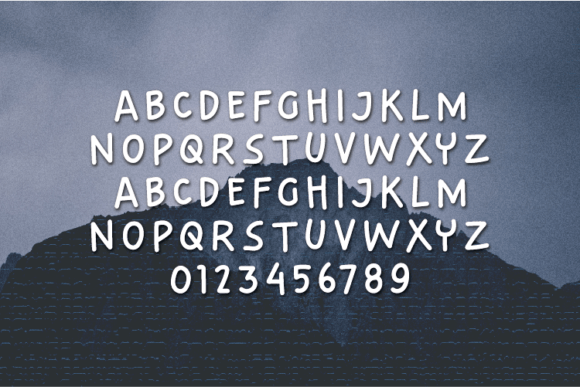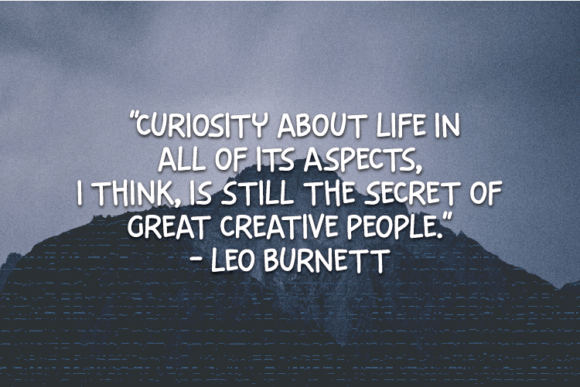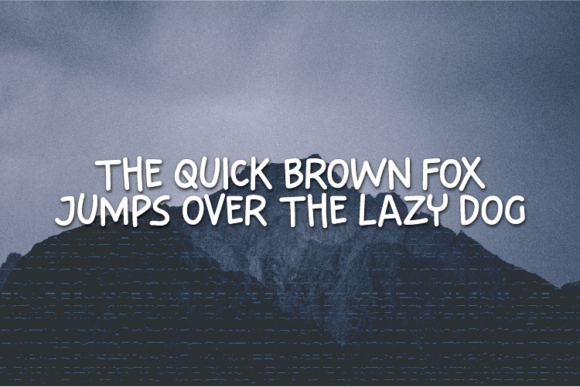
Introduction to Modernies Font
Remember the moment when a spark of creativity hits, and you can envision your project coming to life? It’s a feeling designers know all too well, and for many, it’s the starting point for something truly remarkable. In that instant, the right font can make all the difference, elevating your creation from good to great.
That’s where the Modernies Font comes in – a fun and casual handwritten font that’s ready to take your creative project to the next level. Whether you’re working on a design for a website, a social media campaign, or a marketing brochure, Modernies Font has the potential to be a wonderful asset to your font library, offering a high-quality, free download that’s sure to please.
With its transparent background and versatile design, Modernies Font is a valuable resource for designers of all levels, providing a flexible and creative solution for any project.
Key Features of Modernies Font
- High-quality vector font with transparent background, ideal for creative projects and designs.
- Features a unique, modern design with clean lines and minimalistic aesthetic, perfect for modern and sleek creative projects.
- Designed to work well with both light and dark backgrounds, offering flexibility and versatility in design applications.
Honest Review: Modernies Font
As a designer, I’m always on the lookout for high-quality design resources to elevate my creative projects. Recently, I stumbled upon the Modernies Font, and I’m excited to share my honest review with you.
What works well: ✨ The Modernies Font has a clean and modern aesthetic that’s perfect for contemporary designs. It’s highly versatile and can be used for a wide range of creative projects, from logos to brochures. The font also includes a transparent background option, which makes it easy to use on complex design backgrounds.
- Perfect for modern and contemporary designs
However, there are a few limitations: ⚠️ The font only comes in a limited number of weights, which may not be ideal for designers who need a wide range of typography options. Additionally, the font’s availability is limited to a free download, which may not be suitable for commercial projects.
Overall, I’m impressed with the Modernies Font’s quality and versatility. While it may have some limitations, it’s a great design resource for designers who need a modern and clean font for their creative projects.
Modernies Font is ideal for creating a modern and sleek look in your designs. Some common use cases include:
– Creating a logo or brand identity
– Designing a website or blog
– Making presentations or reports
– Adding a touch of modernity to your social media graphics